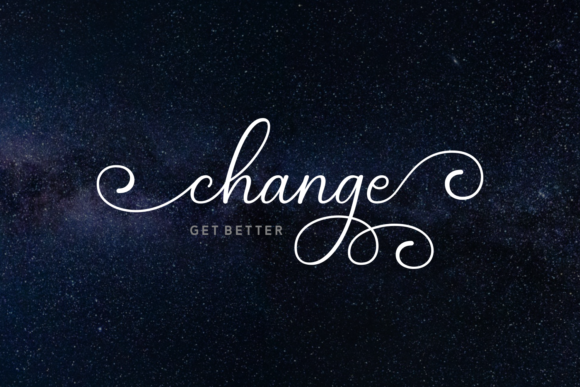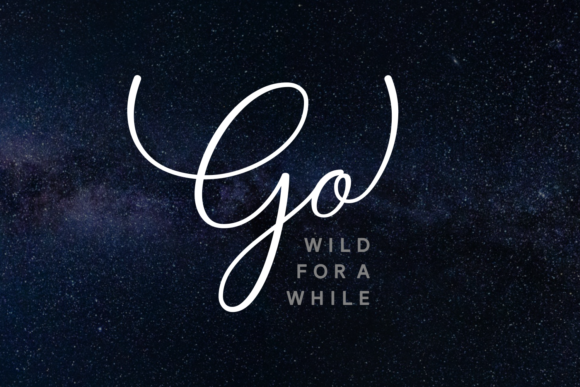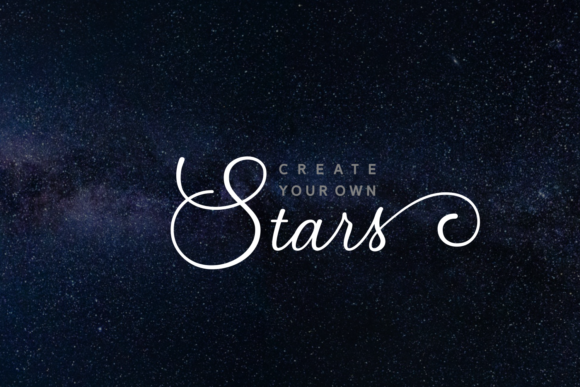
Candire Font: Elevate Your Designs with Elegance and Sophistication
In the world of typography, fonts play a crucial role in conveying the tone and personality of a design. For designers and crafters seeking to add a touch of refinement and elegance to their work, the Candire font is an excellent choice. This beautiful script font is crafted to give your work a sophisticated look, making it perfect for headlines, titles, and other design elements where style and poise are paramount.
The Beauty of Candire: A Modern Calligraphy Font
Candire is a modern calligraphy font that boasts a unique blend of classic elegance and contemporary flair. Its fluid strokes, intricate details, and harmonious letterforms make it a stunning addition to any design. Whether you’re working on a logo, brochure, or website, Candire’s versatility and adaptability ensure that it will complement your design style with ease.
Key Features of Candire Font
- Elegant Script Style: Candire’s script style is characterized by its flowing connections, delicate strokes, and refined letterforms, giving it a sophisticated and luxurious feel.
- Versatile and Adaptable: This font is designed to adapt to different styles and designs, making it suitable for a wide range of applications, from formal events to digital media.
- Excellent for Headlines: Candire’s bold and eye-catching design makes it perfect for headlines, titles, and other attention-grabbing elements in your design.
- High-Quality Typography: Candire is crafted with precision and attention to detail, ensuring that it delivers high-quality typography that will elevate your designs.
Why Choose Candire Font?
With so many fonts available, why choose Candire? Here are a few compelling reasons:
- Unique and Distinctive: Candire’s modern calligraphy style sets it apart from more traditional fonts, giving your designs a fresh and distinctive look.
- Easy to Read: Despite its elegant and cursive nature, Candire is surprisingly easy to read, making it suitable for body text as well as headlines.
- Supports Multiple Languages: Candire supports a wide range of languages, making it a great choice for designers working on international projects.
Using Candire Font in Your Designs
So, how can you incorporate Candire into your designs? Here are a few ideas to get you started:
- Logos and Branding: Use Candire to create a sophisticated and memorable logo that reflects your brand’s personality and values.
- Print Materials: Add a touch of elegance to your brochures, flyers, and business cards with Candire’s refined script style.
- Digital Media: Use Candire to create eye-catching headlines and titles for your website, social media, or digital advertising campaigns.
| Font Name | Candire Font |
| Author | Andrian Dehasta |
In conclusion, the Candire font is a beautiful and versatile script font that can elevate your designs with its elegance and sophistication. With its modern calligraphy style, adaptability, and high-quality typography, Candire is an excellent choice for designers and crafters seeking to add a touch of refinement to their work. Whether you’re working on a logo, print materials, or digital media, Candire is sure to impress.
Get Creative with Candire Font